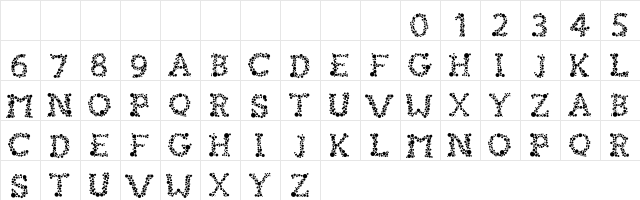
FIZZO Heavy Regular
| Designer | RAVI KUMAR |
Design Context for FIZZO Heavy Typeface
FIZZO Heavy is a composed and adaptable typeface that performs quietly and consistently across a wide range of design contexts.